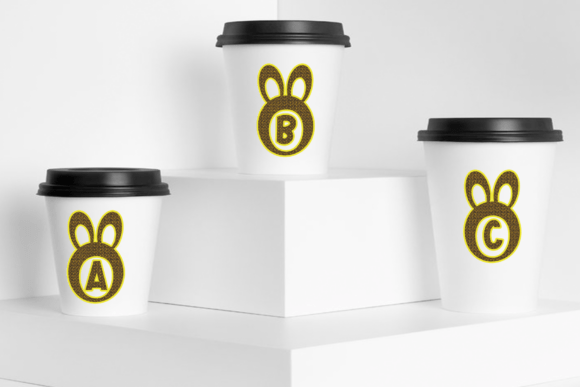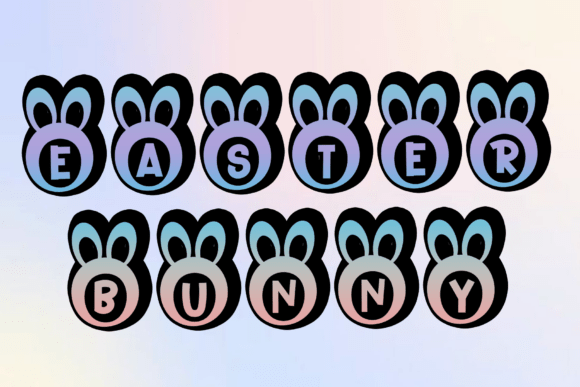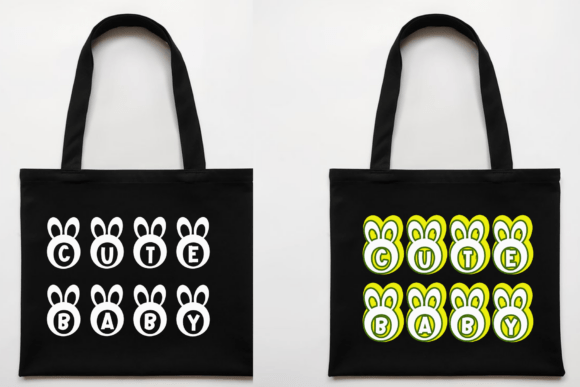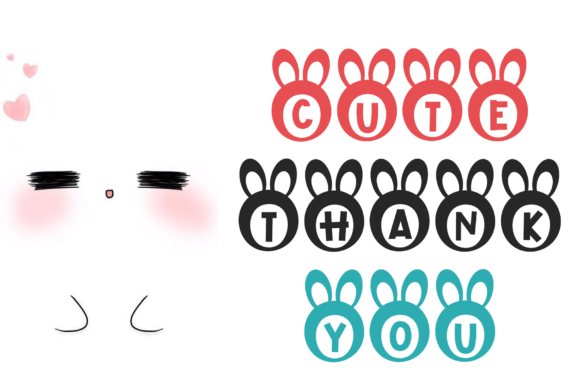
The Bunny Rabbit Font: A Cute and Bold Decorative Delight
I’ll never forget the moment I stumbled upon the Bunny Rabbit font. I was working on a whimsical Easter-themed project for a client, and I was struggling to find the perfect font to bring the design to life. The project required a playful, yet bold and eye-catching font that would capture the essence of springtime fun. That’s when I discovered Bunny Rabbit, a cute and bold decorative font that instantly resonated with me.
As I began to experiment with the font, I was blown away by its unique and beautiful style. The bold, rounded letters seemed to dance across the page, adding a touch of playfulness and personality to my design. I knew right then and there that I had found the perfect font for my project, and I couldn’t wait to share it with my fellow designers and crafty friends.
An Honest Review: The Good and the Quirky
So, what do I love about the Bunny Rabbit font? Here are a few things that make it stand out:
- ✨ Cute and playful design: The font’s bold, rounded letters are perfect for creating eye-catching designs that pop.
- ✅ Ease of use: The font is easy to read and works well for both headlines and body text.
- 💕 Emotional connection: The font’s whimsical design instantly evokes feelings of joy and playfulness.
- 🤔 Limited versatility: While the font is perfect for playful designs, it may not be the best choice for more formal or professional projects.
- ⚠️ Glyph limitations: Some users have reported issues with certain glyphs or special characters, so be sure to test the font thoroughly before using it in a project.
The Designer Inspiration Behind Bunny Rabbit
The story behind Bunny Rabbit is one of creativity and passion. According to the font’s designer, the inspiration came from a love of whimsical illustrations and a desire to create a font that would bring joy to designers and readers alike. The designer’s goal was to create a font that would be both bold and playful, with a unique personality that would shine through in any design.
| What is the Bunny Rabbit font best used for? | The Bunny Rabbit font is best used for playful, whimsical designs, such as Easter-themed projects, children’s books, or fun social media graphics. |
Overall, the Bunny Rabbit font is a delightful addition to any design project. Its bold, playful design and unique personality make it perfect for bringing a touch of whimsy and fun to your creations. So why not give it a try and see how it can bring your designs to life?